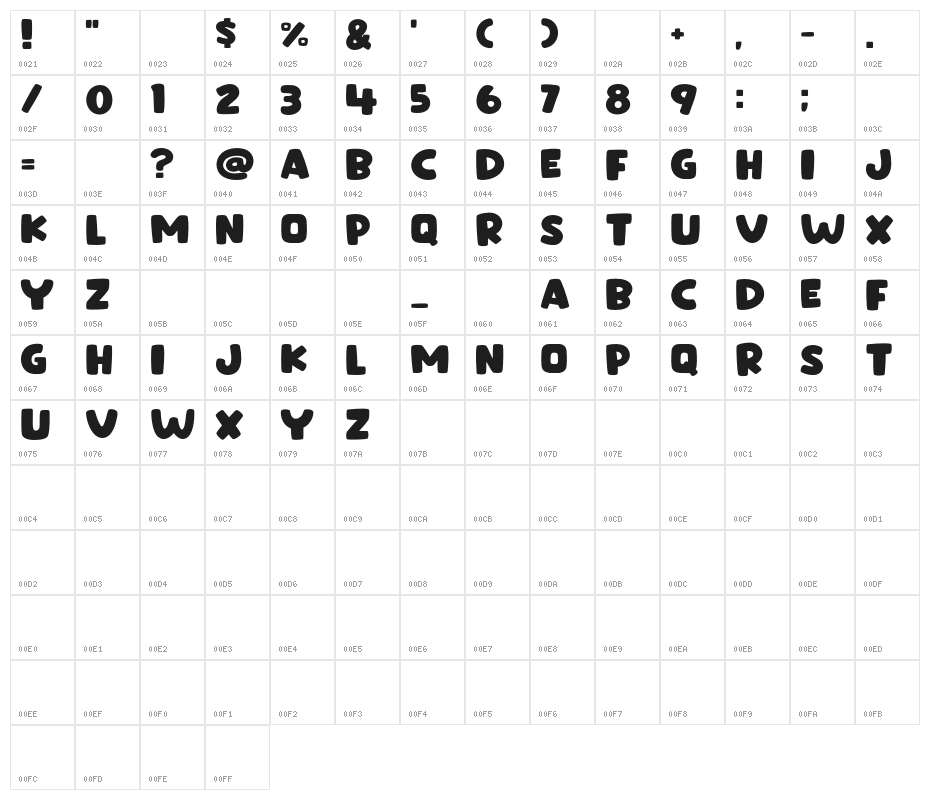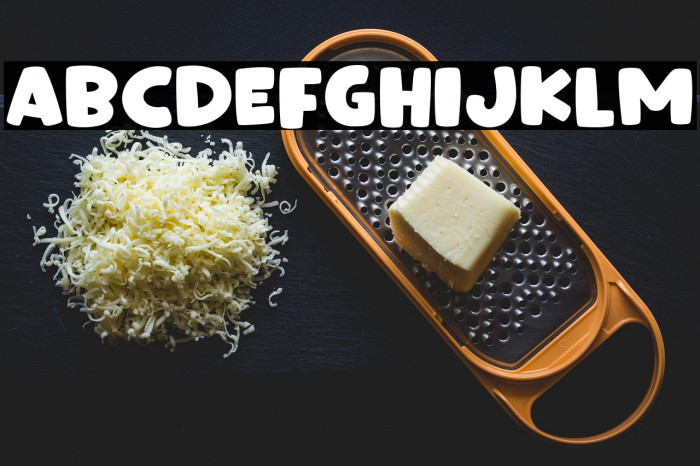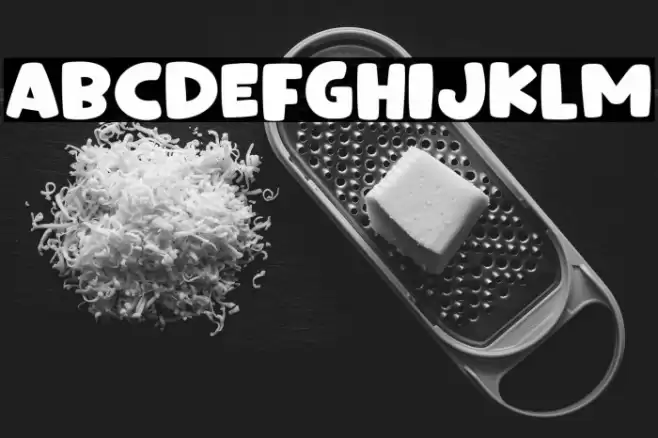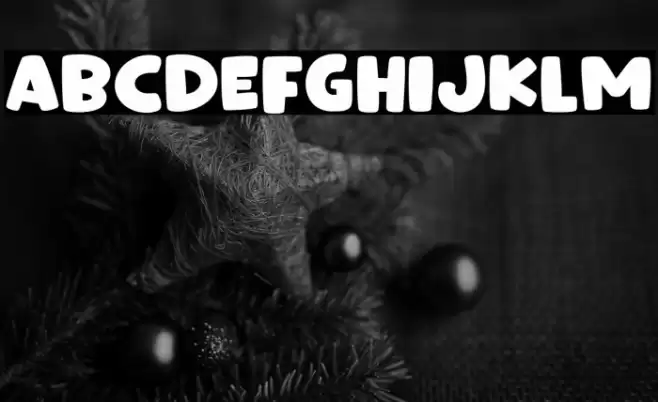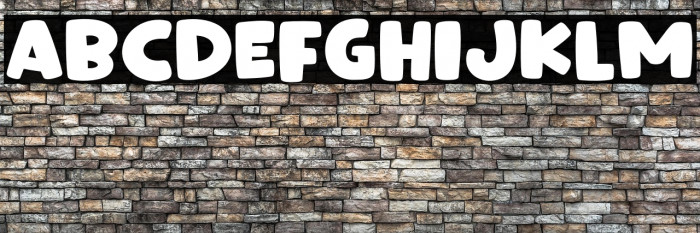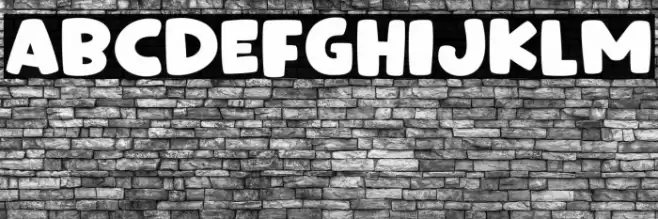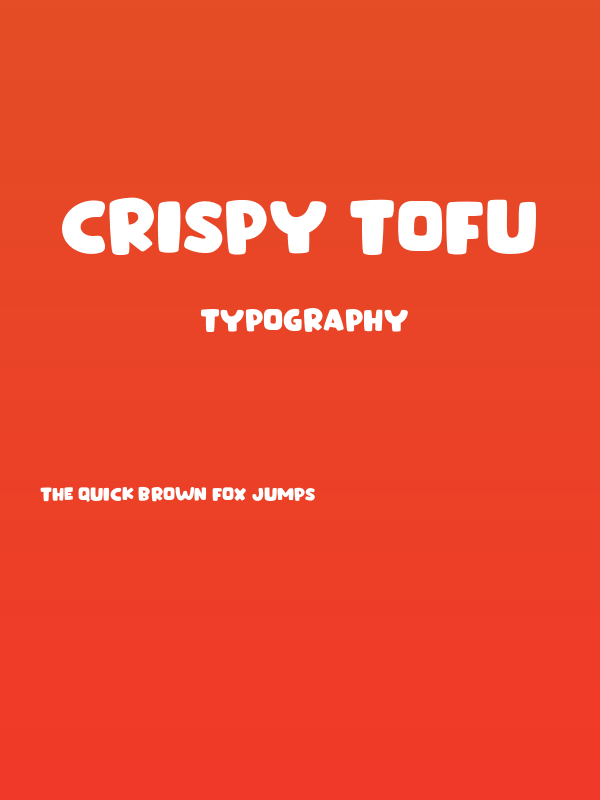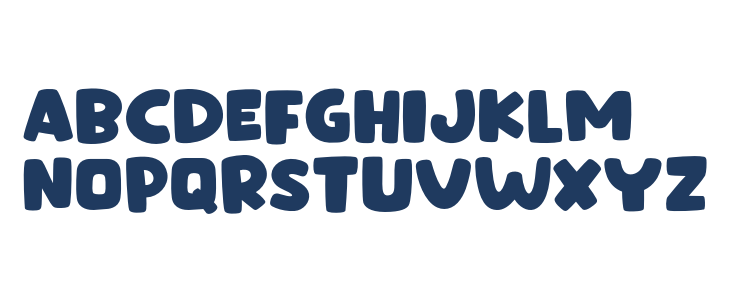
Crispy Tofu Font
Crispy Tofu Description
This playful and bold font features thick, rounded letters with a bubbly appearance. The characters are uniformly wide, giving a sense of balance and consistency across the alphabet. The font exudes a fun and informal vibe, making it ideal for creative and lighthearted projects. Its boldness ensures high readability, even at smaller sizes, while the rounded edges add a touch of friendliness and approachability. The numerals and special characters maintain the same playful style, ensuring a cohesive look across all text elements.
| Proposed Projects | Perfect for children's books, playful branding, party invitations, and casual social media graphics. |